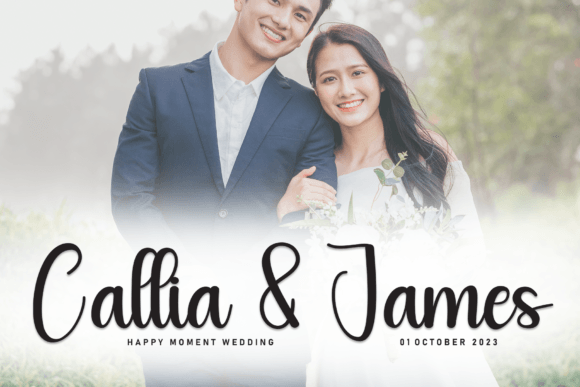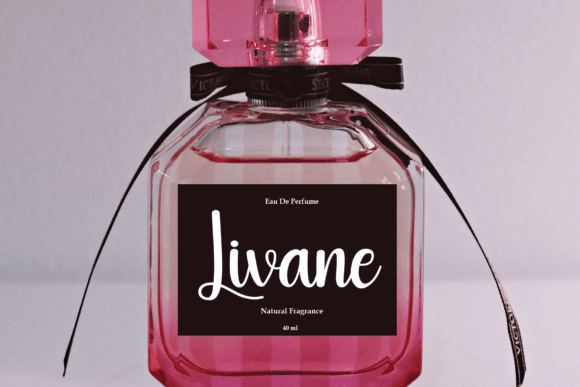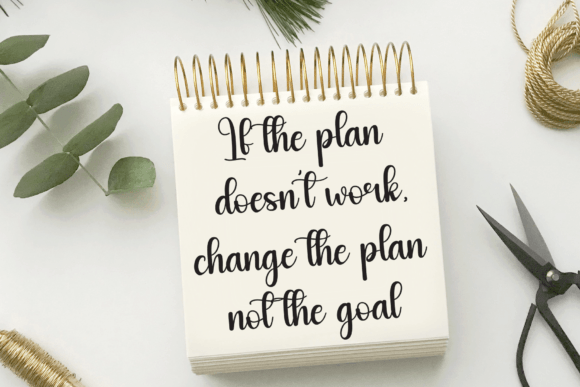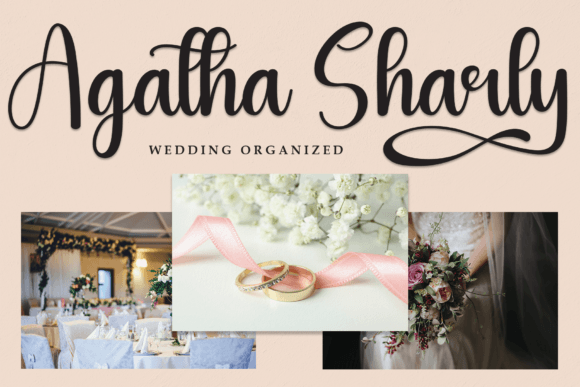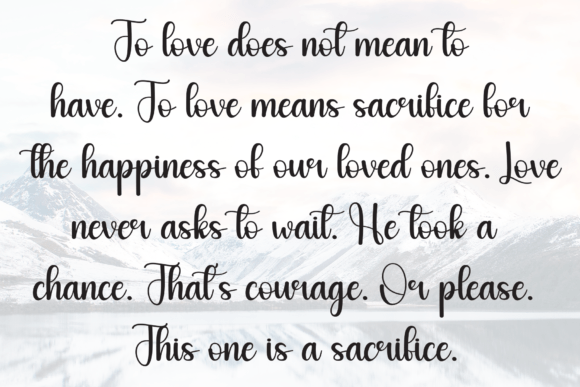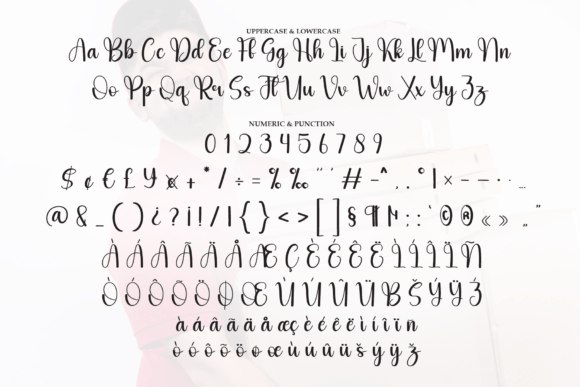
Introducing Heavily Font: The Sweet and Friendly Handwritten Font for Your Design Needs
Are you looking for a font that can add a touch of sweetness and friendliness to your designs? Look no further than Heavily Font! This beautiful handwritten font is perfect for creating wedding invitations, cards, and other designs that require a fun and playful touch. In this article, we’ll take a closer look at Heavily Font and explore its features, benefits, and uses.
What is Heavily Font?
Heavily Font is a modern handwritten font that is designed to be fresh, cute, and highly versatile. Its unique and elegant style makes it perfect for a wide range of design projects, from wedding invitations and cards to social media graphics and branding materials. The font is carefully crafted to convey a sense of warmth, friendliness, and approachability, making it ideal for designers and crafters who want to create designs that are both beautiful and engaging.
Key Features of Heavily Font
So, what makes Heavily Font so special? Here are some of its key features:
- Handwritten style: Heavily Font is a handwritten font that is designed to look like it was written with a pen or pencil. This gives it a personal and organic feel that is perfect for creating unique and engaging designs.
- Sweet and friendly: The font has a sweet and friendly tone that is perfect for creating designs that are approachable and inviting.
- Fresh and cute: Heavily Font is a fresh and cute font that is perfect for creating designs that are modern and playful.
- Highly versatile: The font is highly versatile and can be used for a wide range of design projects, from wedding invitations and cards to social media graphics and branding materials.
Benefits of Using Heavily Font
So, why should you use Heavily Font for your design projects? Here are some of its benefits:
- Easy to read: Heavily Font is easy to read, even at small sizes, making it perfect for creating designs that need to be legible.
- Unique and creative: The font is unique and creative, making it perfect for designers and crafters who want to stand out from the crowd.
- Customizable: Heavily Font is highly customizable, allowing you to adjust the font size, color, and style to suit your design needs.
- Time-saving: The font is pre-designed, saving you time and effort in creating your own handwritten font from scratch.
Uses of Heavily Font
So, what can you use Heavily Font for? Here are some ideas:
- Wedding invitations: Heavily Font is perfect for creating beautiful and elegant wedding invitations that set the tone for the big day.
- Cards and stationery: The font is ideal for creating cards, stationery, and other paper crafts that require a personal touch.
- Social media graphics: Heavily Font can be used to create engaging social media graphics, such as Instagram posts and Facebook graphics.
- Branding materials: The font can be used to create branding materials, such as logos, business cards, and letterheads.
Tips for Using Heavily Font
Here are some tips for using Heavily Font effectively:
- Use it with a clear background: Heavily Font looks best with a clear or white background, which helps to make the text stand out.
- Experiment with colors: The font looks great in a variety of colors, so don’t be afraid to experiment and find the perfect color for your design.
- Mix and match with other fonts: Heavily Font can be paired with other fonts to create a unique and interesting design.
In conclusion, Heavily Font is a beautiful and versatile handwritten font that is perfect for designers and crafters who want to add a touch of sweetness and friendliness to their designs. With its unique and elegant style, Heavily Font is ideal for creating wedding invitations, cards, social media graphics, and branding materials. Whether you’re a professional designer or a DIY crafter, Heavily Font is a great choice for any design project.